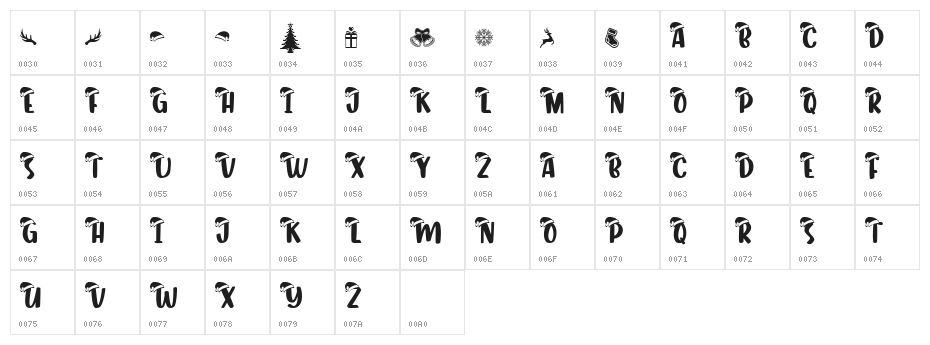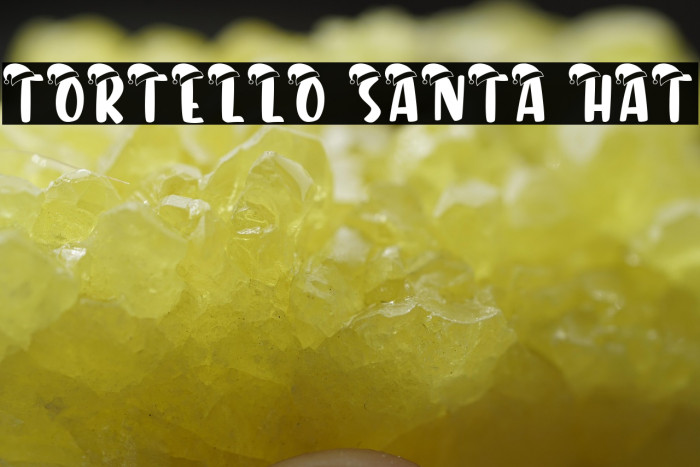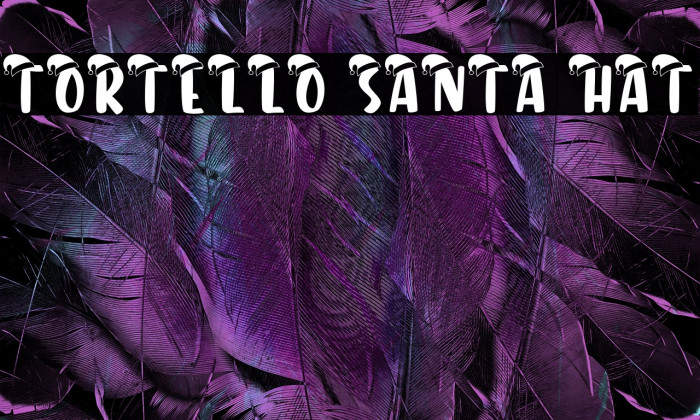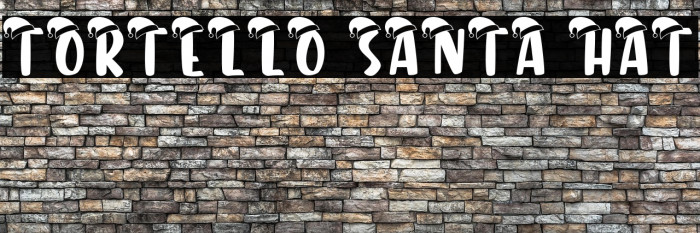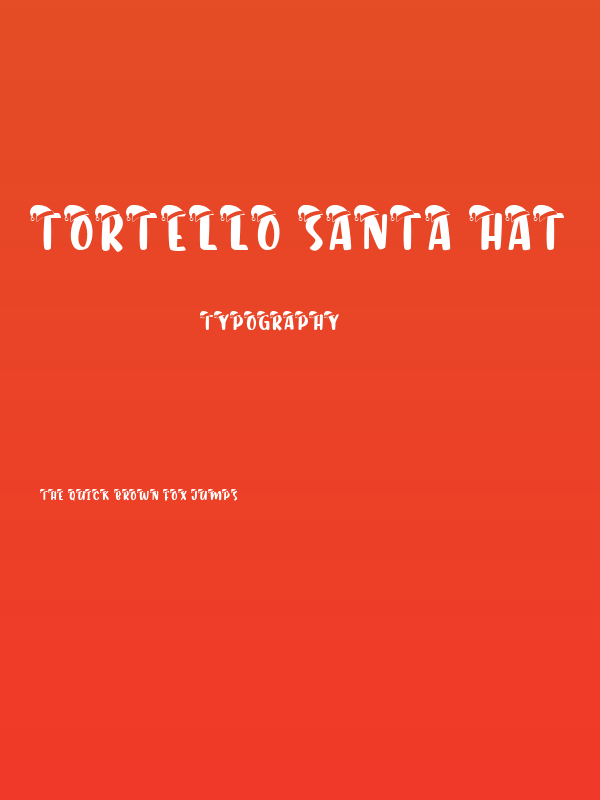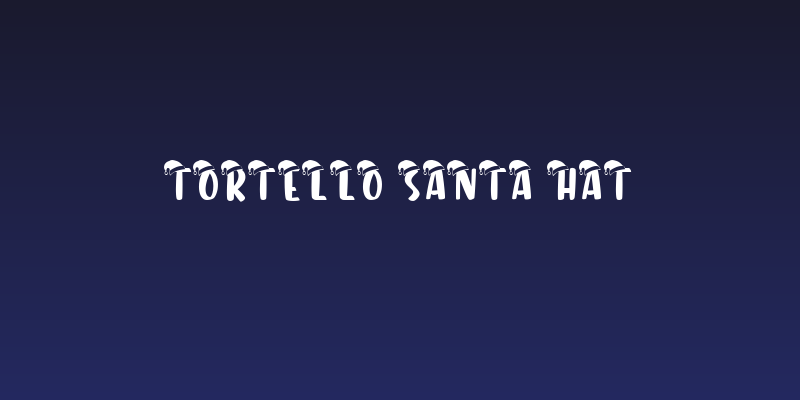
Tortello Santa Hat Font
Tortello Santa Hat Description
This playful and festive font features each letter adorned with a Santa hat, adding a whimsical touch perfect for holiday-themed projects. The characters are bold and rounded, with a smooth, flowing style that conveys a sense of joy and celebration. The font includes both uppercase and lowercase letters, though the lowercase is not shown here. The design is consistent across the alphabet, maintaining a uniform look that enhances readability while still being decorative. This font is ideal for creating eye-catching headlines, invitations, and greeting cards during the Christmas season. The inclusion of holiday-themed symbols such as antlers, Christmas trees, and gifts further enhances its festive appeal.
| Proposed Projects | Ideal for Christmas cards, holiday invitations, festive posters, and seasonal branding. |